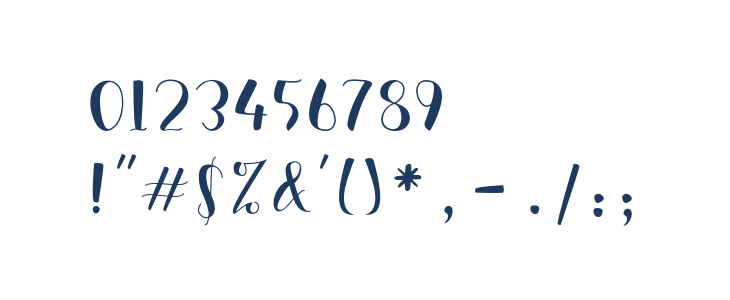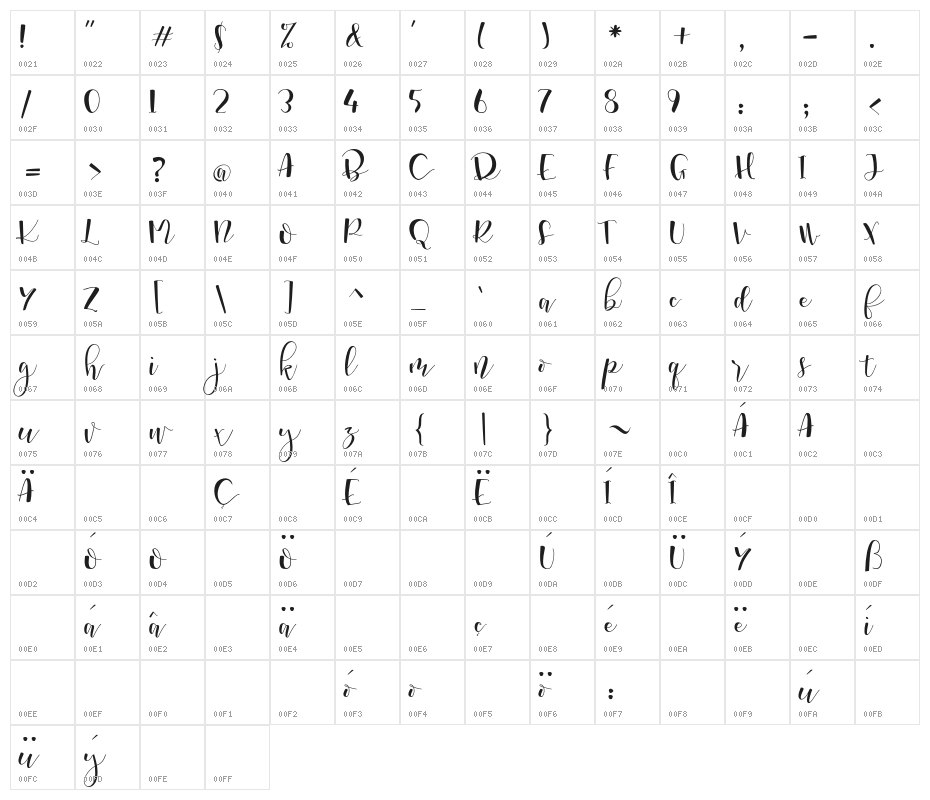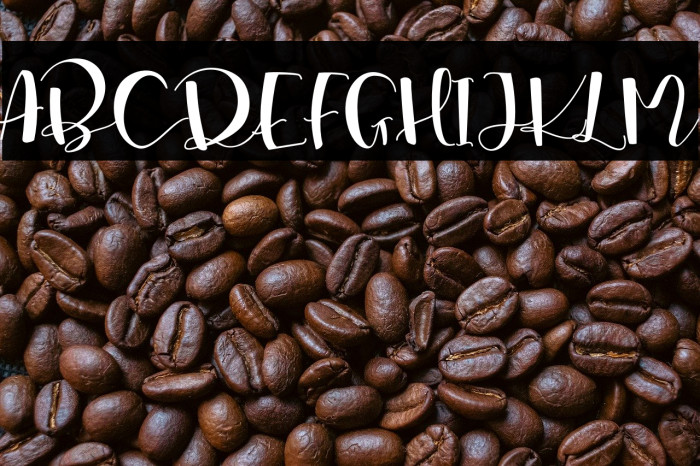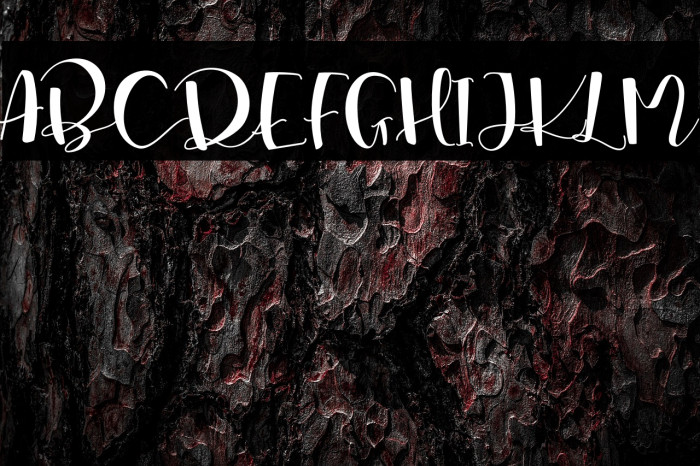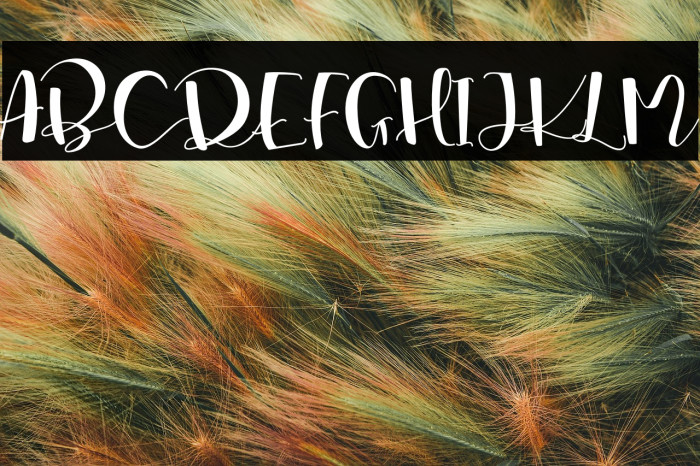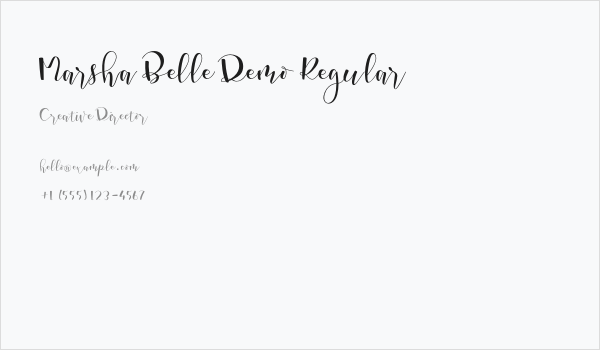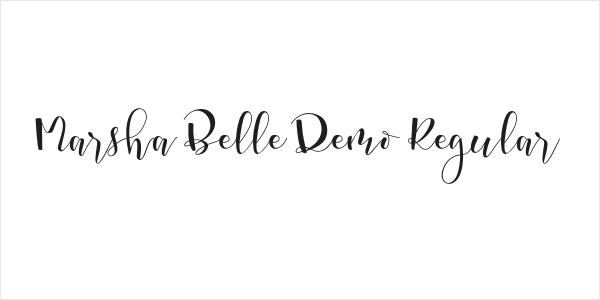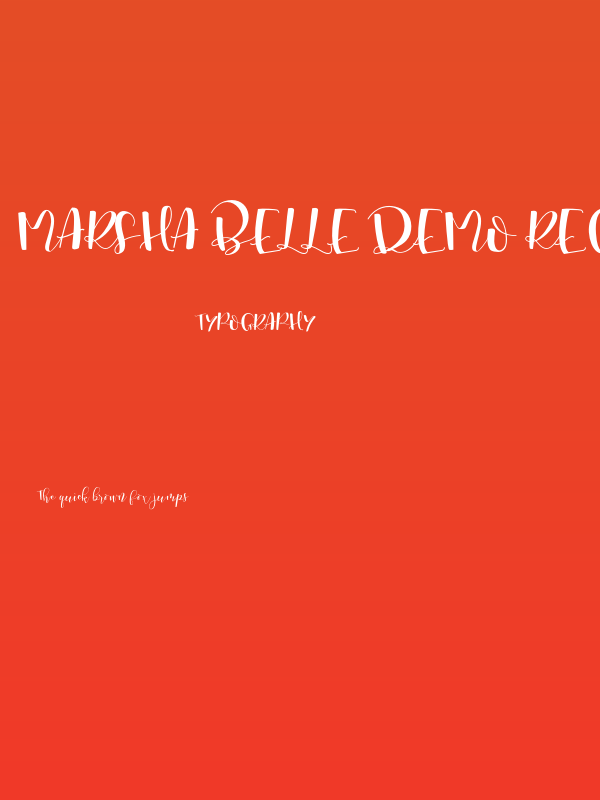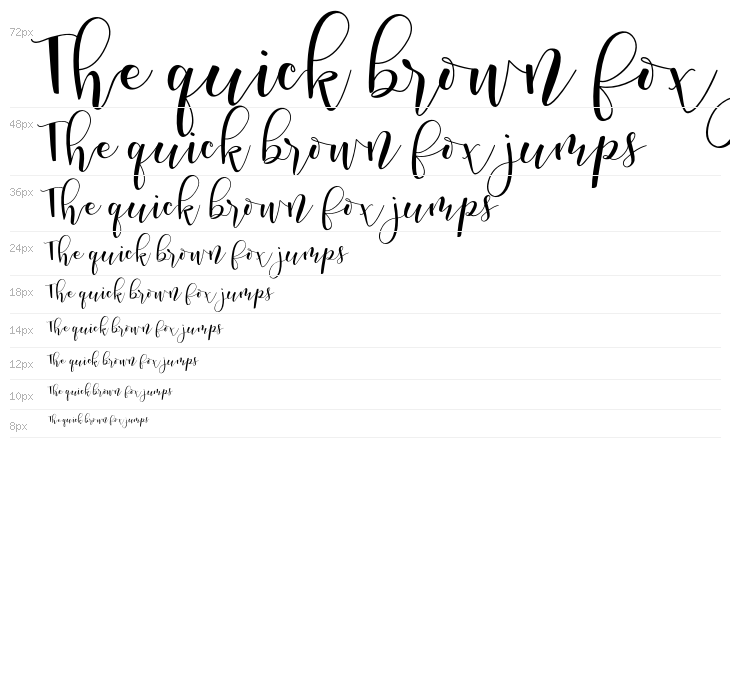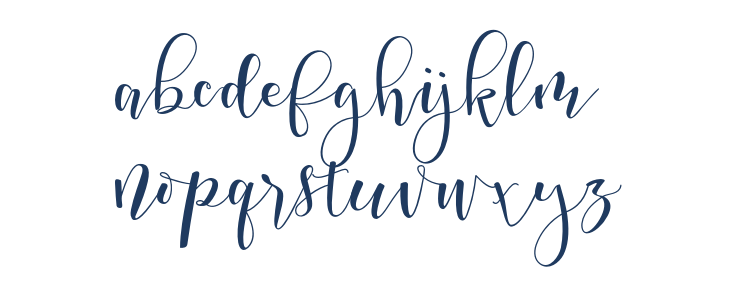
Marsha Belle Demo Regular Font
Marsha Belle Demo Regular Description
This font features an elegant and flowing script style, characterized by its smooth, cursive lines and playful loops. The uppercase letters are bold and expressive, with a distinct flair that adds a touch of sophistication. The lowercase letters maintain a consistent flow, enhancing readability while preserving the artistic nature of the script. Numbers are designed with a similar aesthetic, ensuring a cohesive look across all characters. Special characters are thoughtfully integrated, maintaining the font's overall style. This font is ideal for projects requiring a personal and artistic touch, such as invitations, branding, and decorative designs.